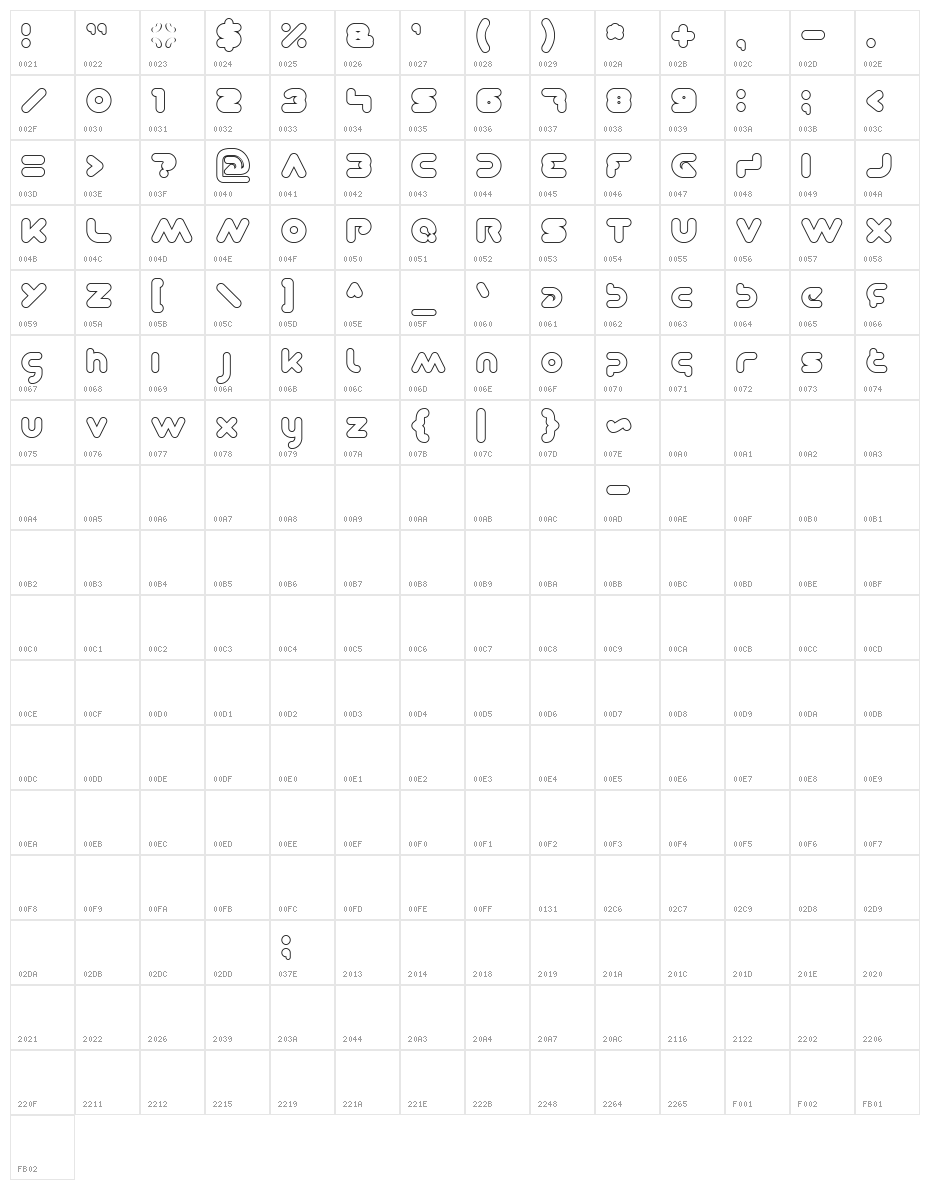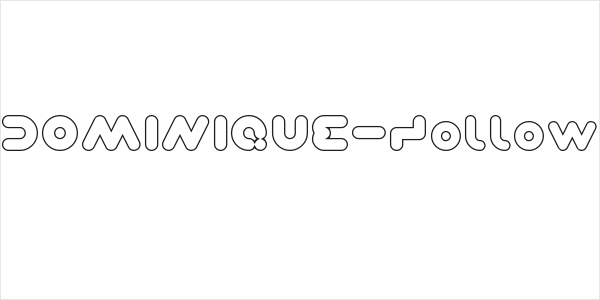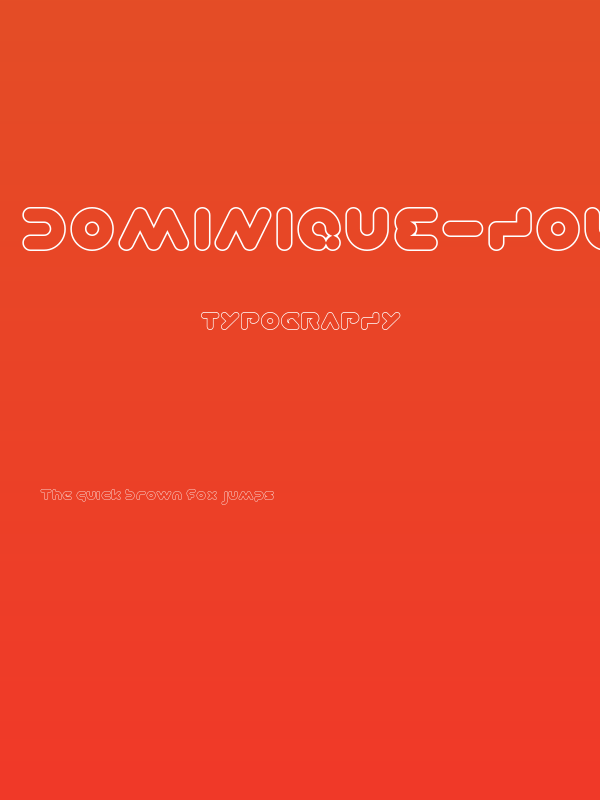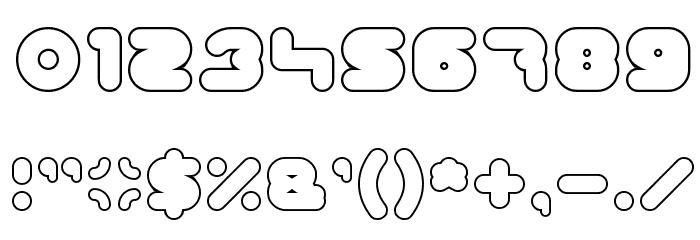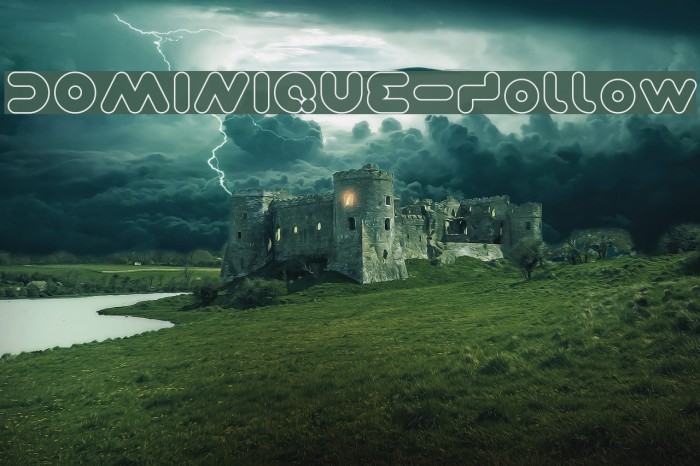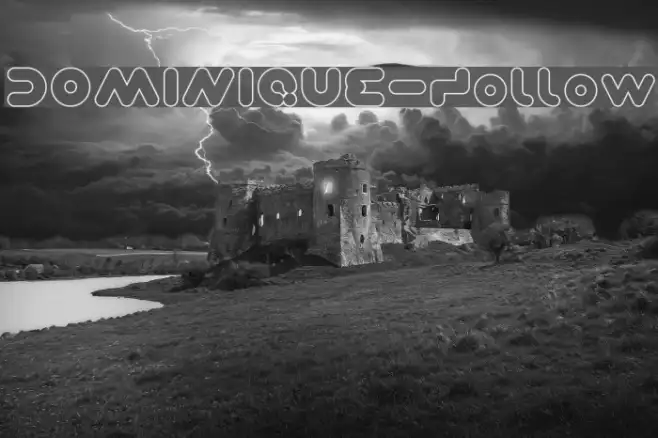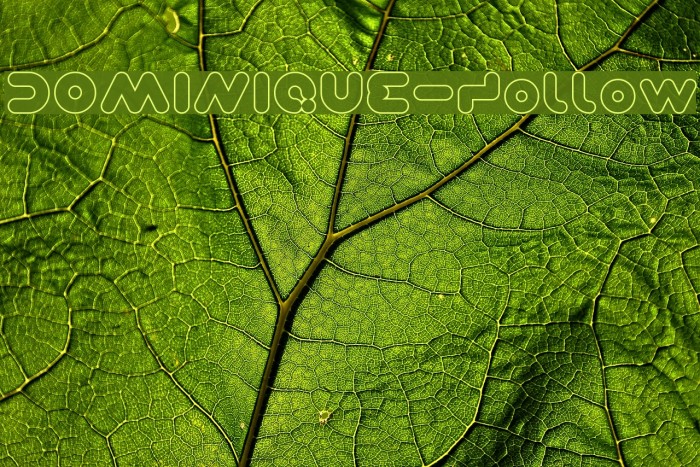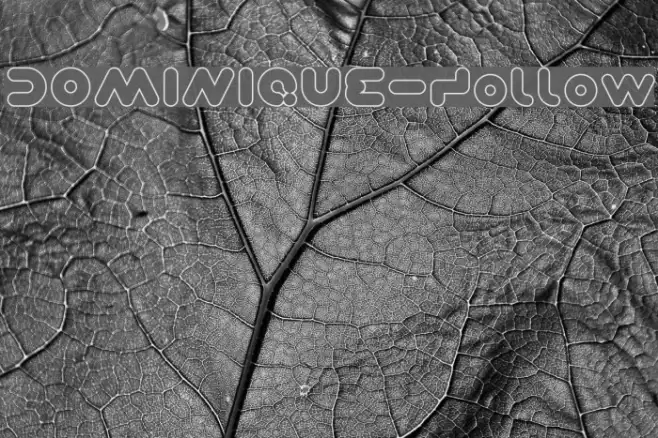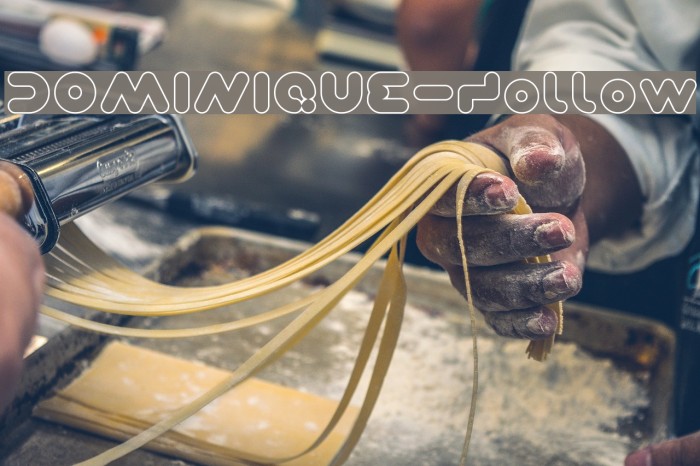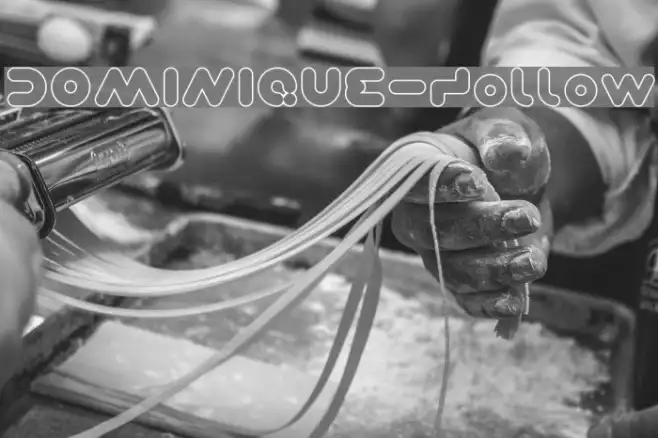
DOMINIQUE-Hollow Font
DOMINIQUE-Hollow Description
This font features a hollow, outline style with rounded edges and a playful, futuristic appearance. Each character is crafted with a consistent stroke width, creating a uniform look across all letters and numbers. The design is bold and eye-catching, making it ideal for projects that require a modern and distinctive aesthetic. The uppercase and lowercase letters maintain a similar style, with slight variations to enhance readability. The numerals and special characters are designed to match the overall theme, ensuring a cohesive look throughout. This font is perfect for creative projects that aim to stand out.
| Proposed Projects | Ideal for branding, posters, digital art, and any project needing a modern, standout font. |